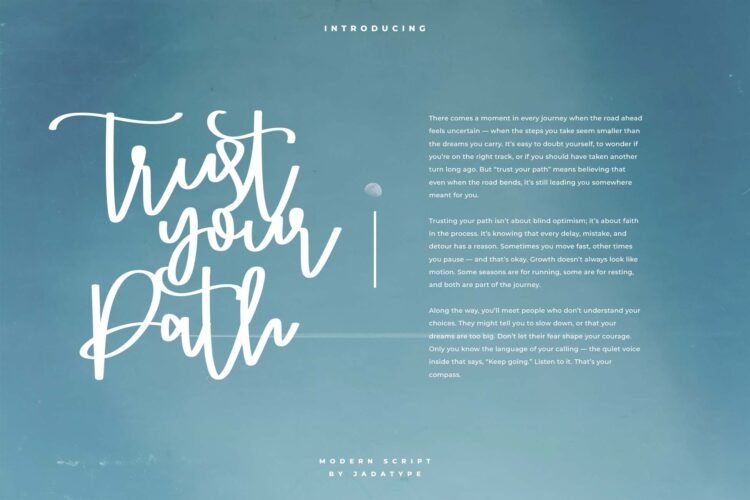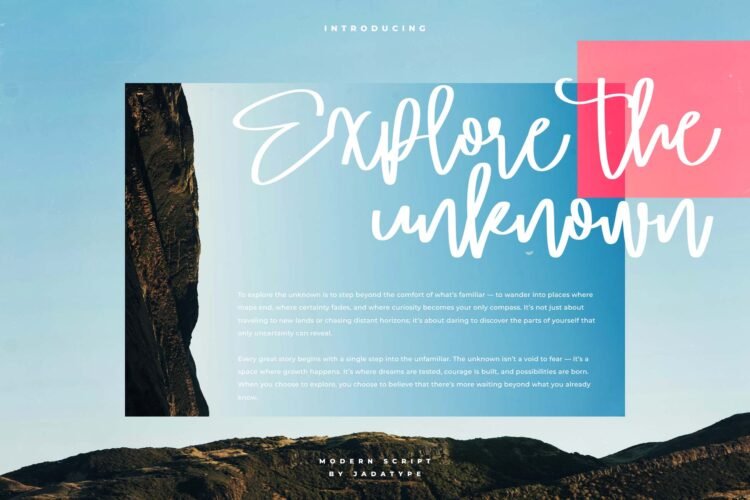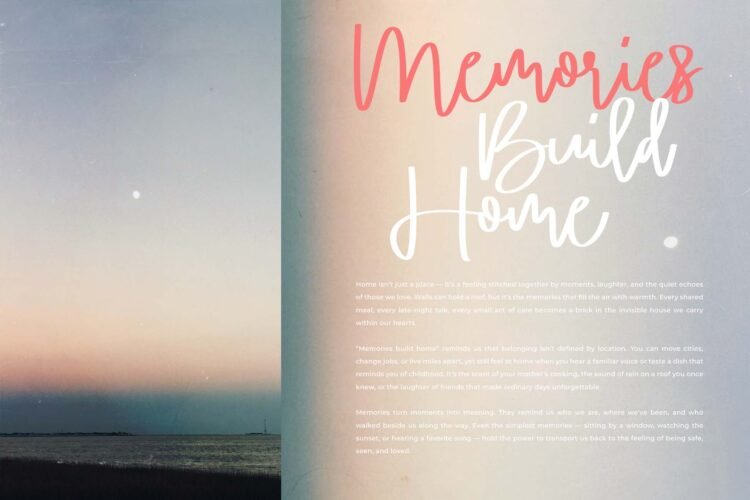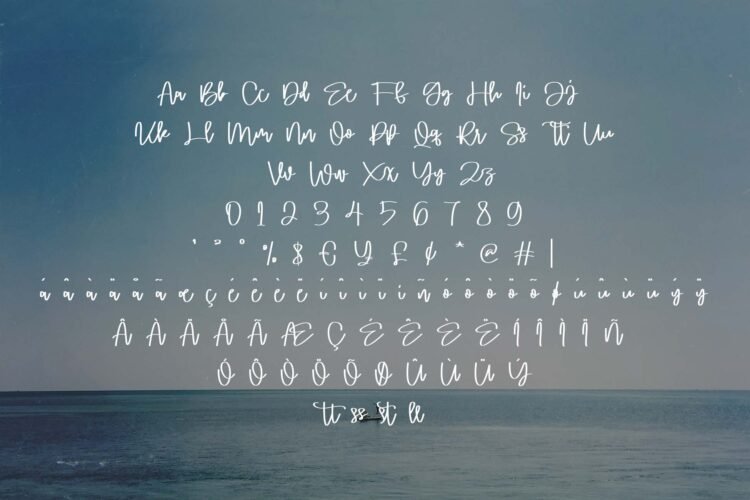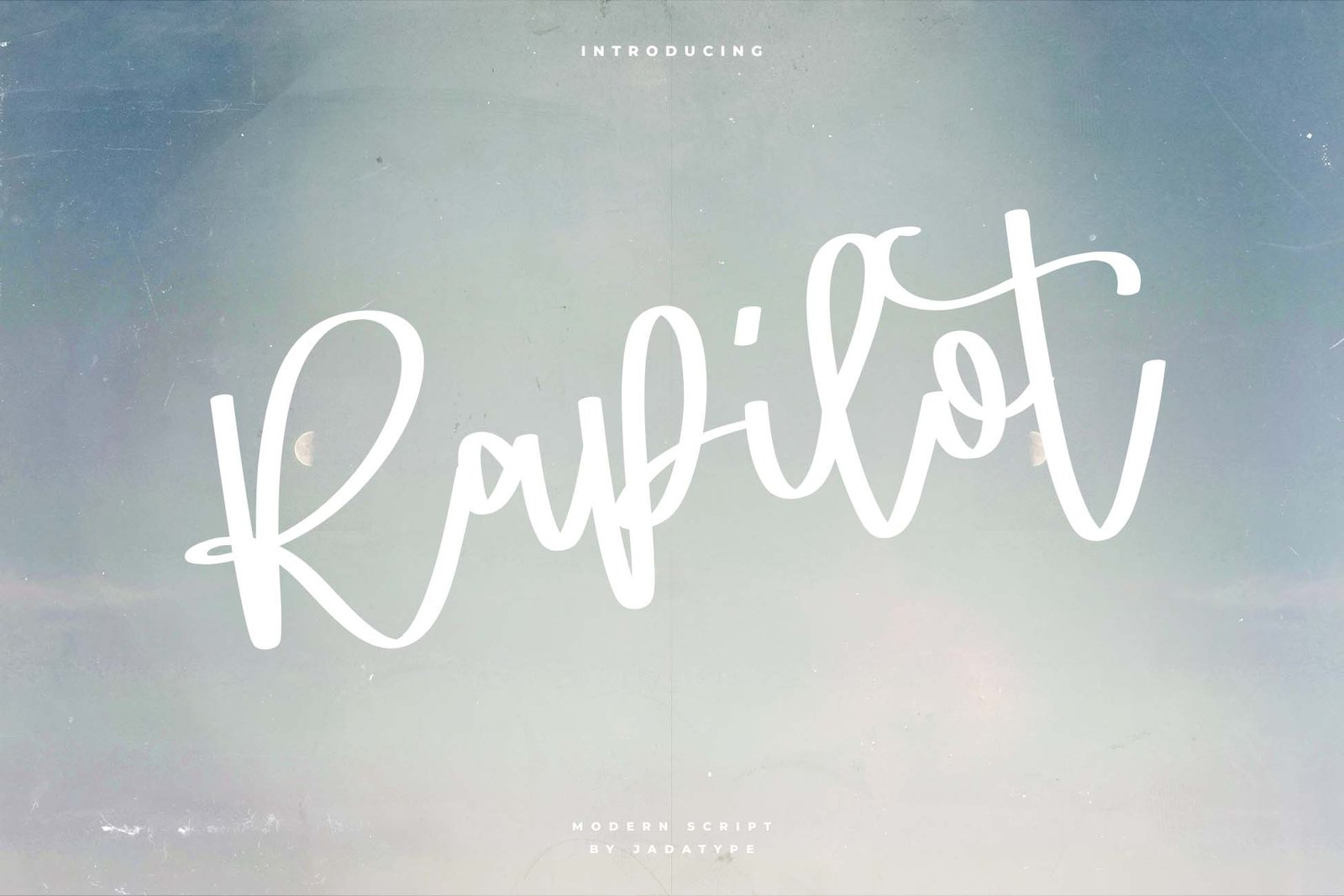
Rapilot
Rapilot Modern Script is a free-spirited blend of charm and confidence , a handwritten typeface that captures effortless elegance in every stroke. Its tall, looping curves and smooth rhythm bring a lively, contemporary feel to your designs. perfect for logos, invitations, and stylish social media visuals.
237 glyphs & characters for dynamic creativity
✦ Full multilingual support
✦ Complete uppercase & lowercase set
Let Rapilot add a touch of playful sophistication to your projects — where handwriting meets modern artistry.